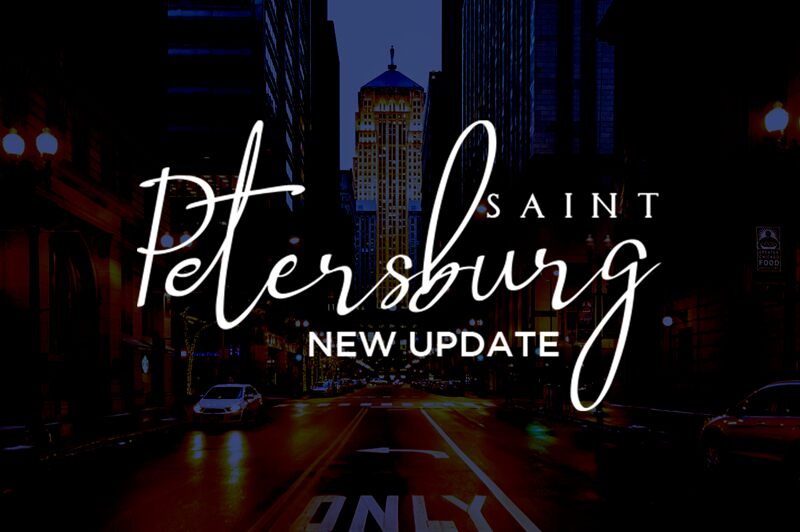
Meet Saint Petersburg 2, the delicate and elegant handwritten font created by Haksen Studio. This light-weight typeface is perfect for projects that require a personalized touch, such as wedding invitations, greeting cards, or logos. Its graceful curves and smooth strokes evoke a sense of sophistication and refinement, making it an ideal choice for luxury brands or high-end products. Whether you're designing a website or creating marketing materials, Saint Petersburg 2 will add a touch of class to any project. Try it out today and see how this beautiful font can elevate your designs to the next level!